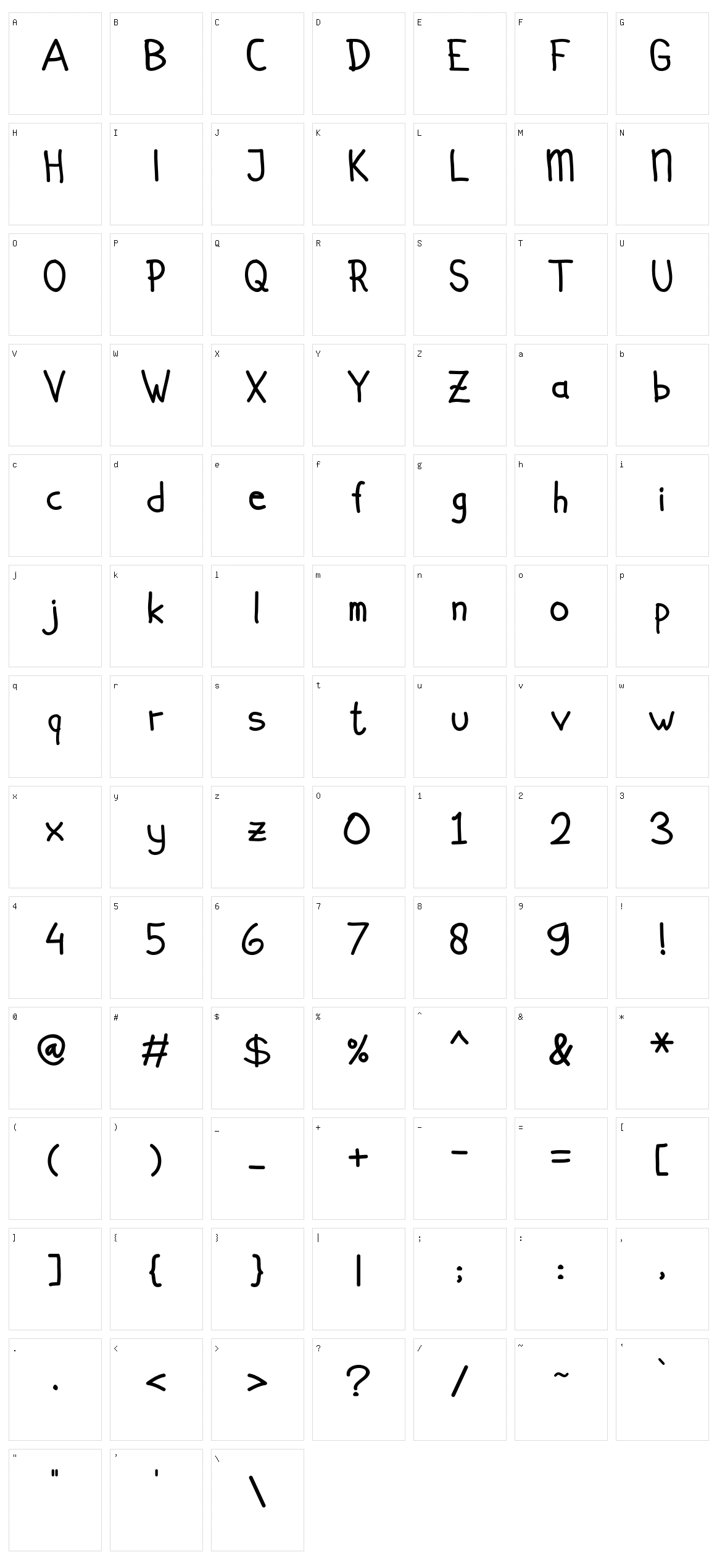
The free font Simplicito is carefully designed by Letter Jos, showcasing a thoughtful balance of creativity and usability and falls under the Script font style. When you download the ZIP file, it contains only 44.45 KB of font files, making it lightweight and quick to download. Please review the license details below to understand permitted usage and distribution rights. If license information is not available, we recommend using this font for personal projects only or contacting the author directly for commercial usage permissions.